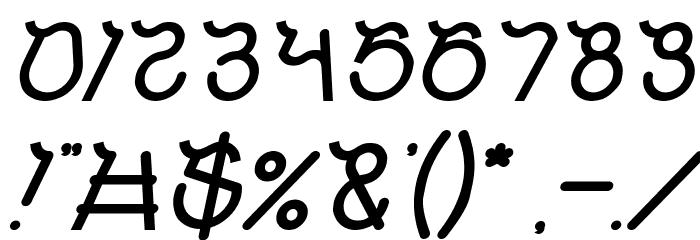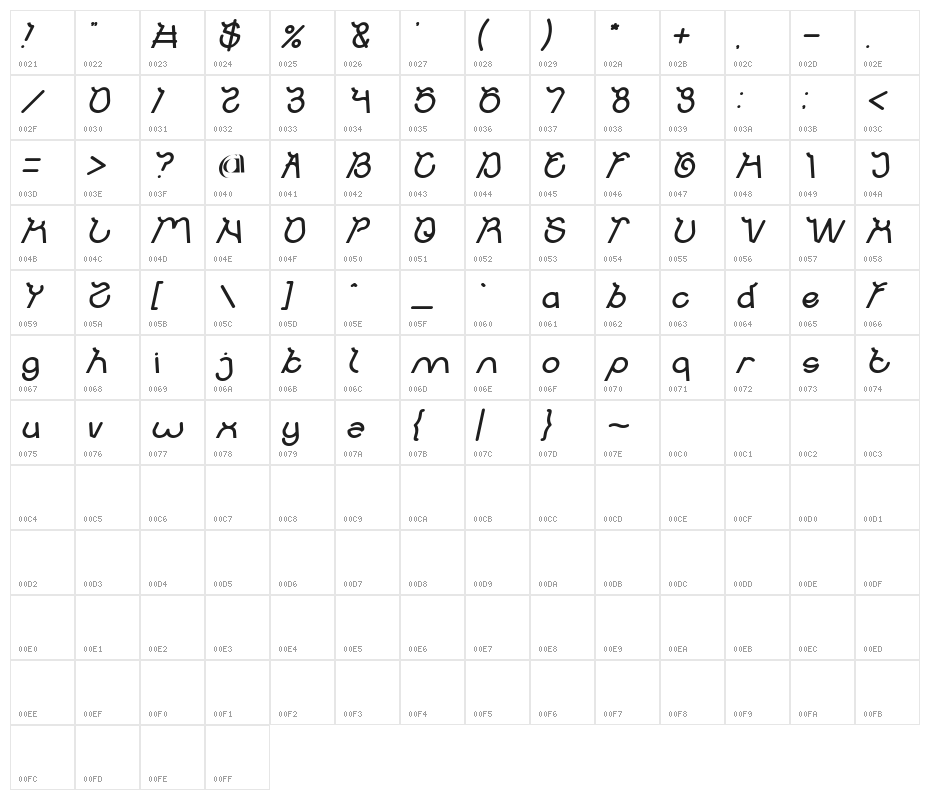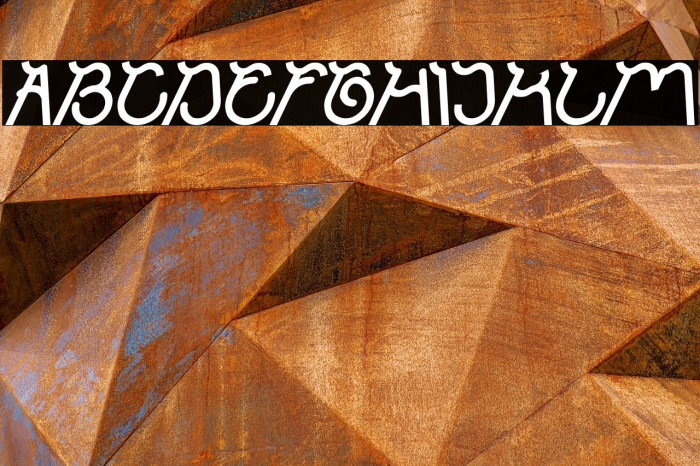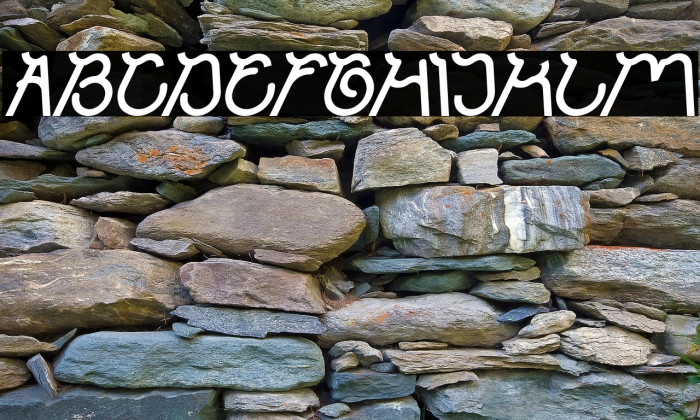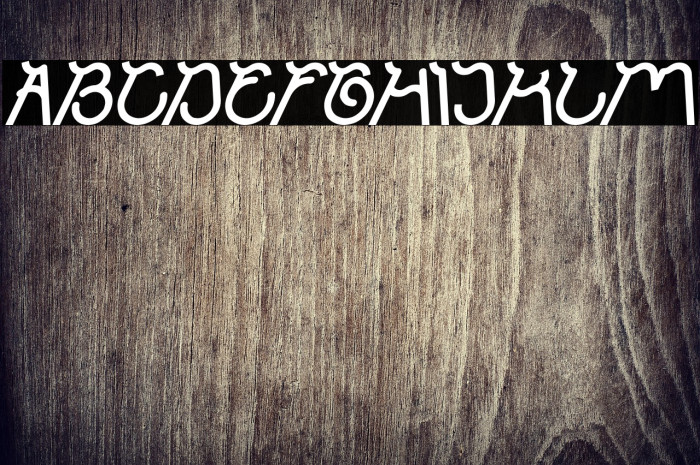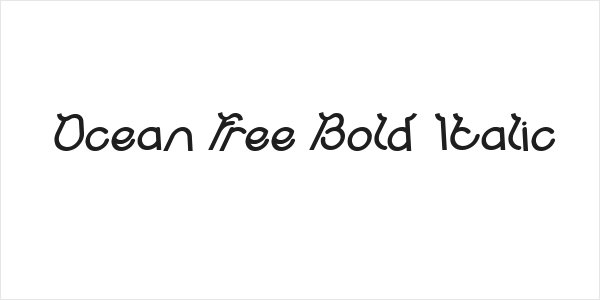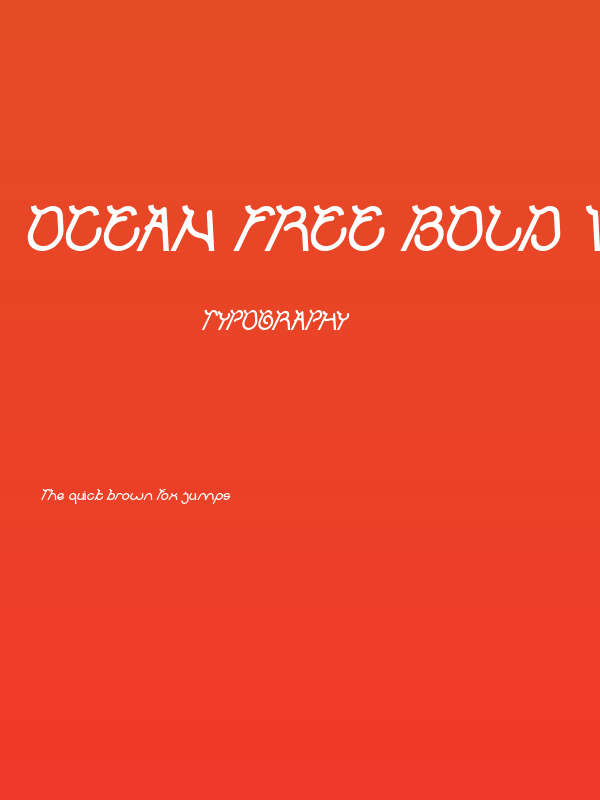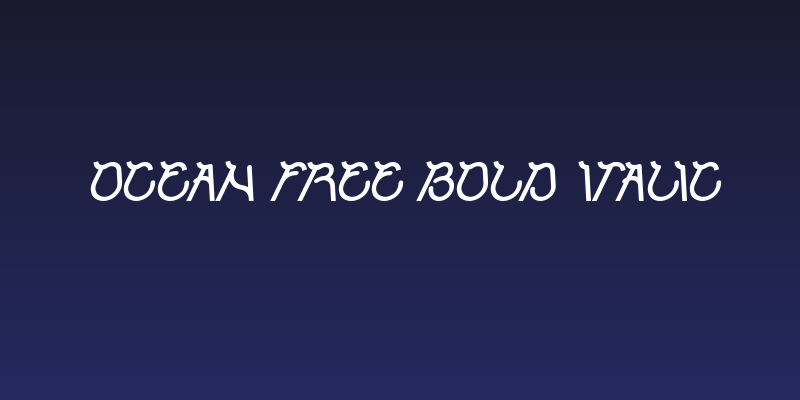
Ocean Free Bold Italic Font
Ocean Free Bold Italic Description
This font features a bold and italicized style with a playful and decorative appearance. The characters are uniquely designed with a flowing, cursive-like quality, giving them a whimsical and artistic flair. The uppercase letters have a distinctive, swirling design, while the lowercase letters maintain a consistent, rounded form. Numbers and special characters are crafted to match the overall aesthetic, ensuring a cohesive look. The font's boldness and decorative elements make it stand out, perfect for creative and expressive projects.
| Proposed Projects | Ideal for artistic projects, playful branding, creative posters, and unique invitations. |